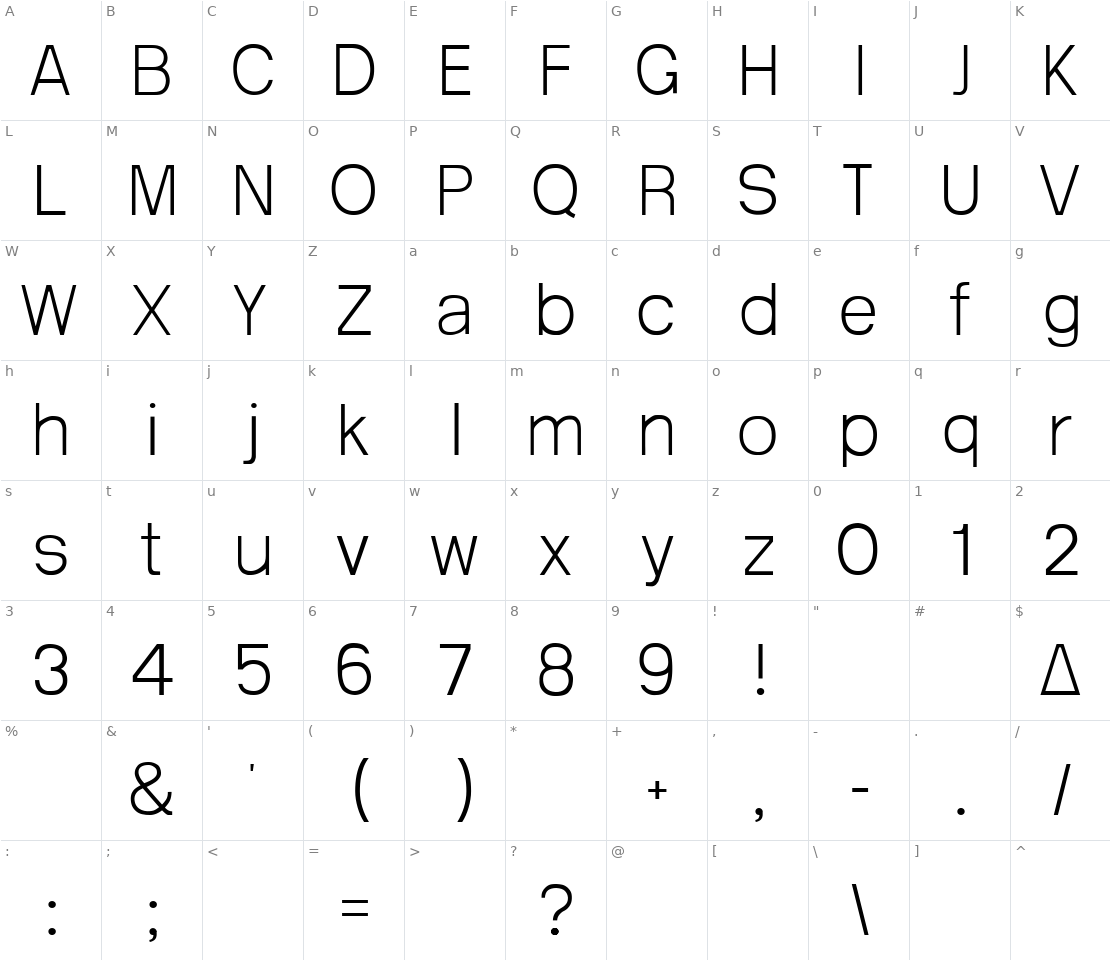
Atrian
by NathanCaldecott
Atrian is a light grotesque from NathanCaldecott with thin, clean letterforms and a quietly elegant demeanor. The neutral proportions and minimal detailing keep it modern without feeling sterile, letting it work across headlines, branding, and editorial contexts where restraint is the point. Its delicate weight demands breathing room, so it reads best at larger sizes or against uncluttered layouts.